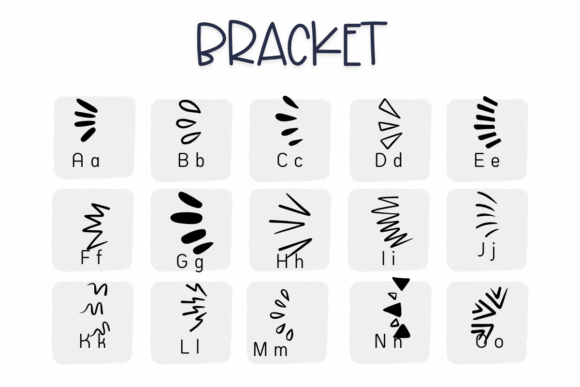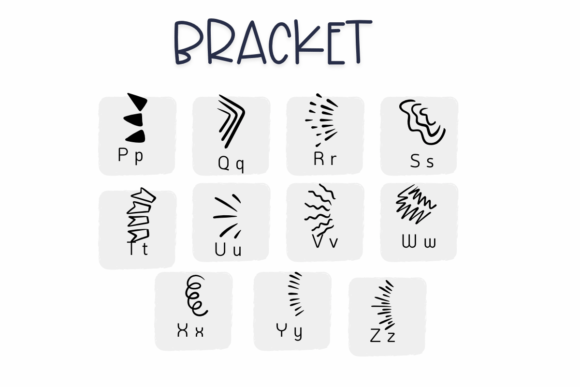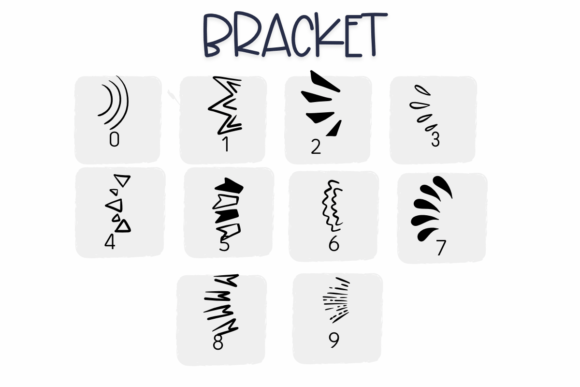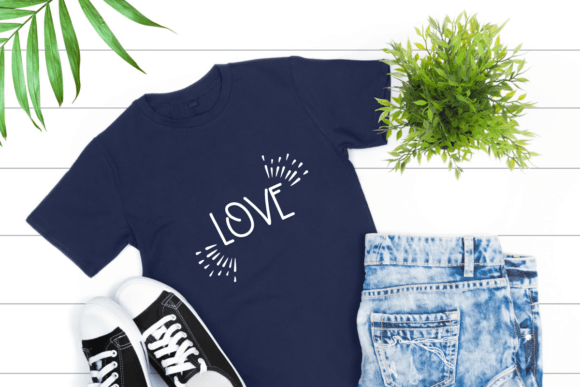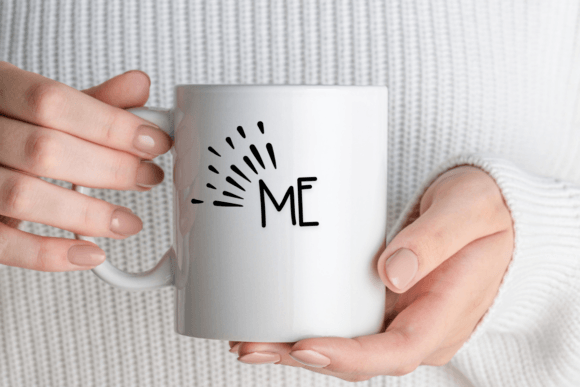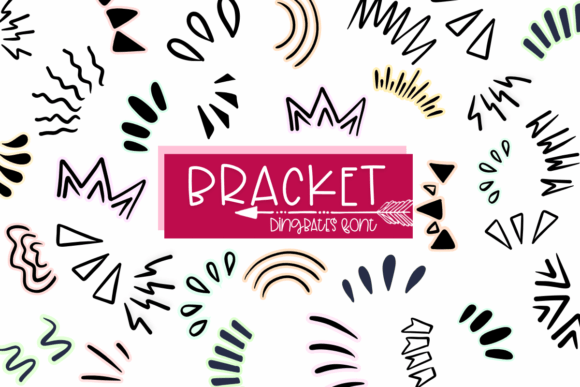
Bracket Font: Elevate Your Creative Projects with a Unique Sketch Style
Are you a designer, crafter, or DIY enthusiast looking for a font that can add a touch of personality to your projects? Look no further than Bracket Font, a dingbats font with a theme that features a charming sketch style. This versatile font is perfect for a wide range of creative projects, from wedding invitations and crafts to decorations, logos, and more.
What is Bracket Font?
Bracket Font is a unique dingbats font that is designed to add a personal touch to your creative projects. The font features a sketch style theme, which gives it a charming and hand-drawn feel. With its intricate details and delicate lines, Bracket Font is perfect for designers and crafters who want to add a touch of elegance and sophistication to their work.
Uses of Bracket Font
Bracket Font is a versatile font that can be used for a wide range of creative projects, including:
• Wedding Invitations: Add a touch of romance and elegance to your wedding invitations with Bracket Font. The font’s sketch style theme is perfect for creating beautiful and unique wedding stationery.
• DIY and Crafts: Bracket Font is perfect for DIY enthusiasts and crafters who want to add a personal touch to their projects. Use the font to create custom signs, decorations, and other crafty projects.
• Logos and Branding: Bracket Font can be used to create unique and memorable logos for businesses and brands. The font’s sketch style theme gives it a distinctive and eye-catching feel.
• Decorations: Use Bracket Font to create custom decorations for parties, events, and other special occasions. The font’s intricate details and delicate lines make it perfect for creating beautiful and unique decorations.
Benefits of Using Bracket Font
There are many benefits to using Bracket Font for your creative projects. Some of the benefits include:
• Unique and Eye-Catching: Bracket Font is a unique and eye-catching font that can add a touch of personality to your projects.
• Versatile: The font is versatile and can be used for a wide range of creative projects, from wedding invitations to logos and branding.
• High-Quality: The font is high-quality and features intricate details and delicate lines.
Tips for Using Bracket Font
Here are some tips for using Bracket Font for your creative projects:
• Use it with Other Fonts: Bracket Font can be used with other fonts to create a unique and eye-catching look.
• Experiment with Different Sizes: Experiment with different sizes to find the perfect size for your project.
• Use it for Headings and Titles: Bracket Font is perfect for headings and titles, and can add a touch of elegance and sophistication to your project.
Bracket Font is a unique and versatile font that can add a touch of personality to your creative projects. With its sketch style theme and intricate details, the font is perfect for designers, crafters, and DIY enthusiasts who want to create beautiful and unique projects. Whether you’re creating wedding invitations, logos, or decorations, Bracket Font is a great choice.